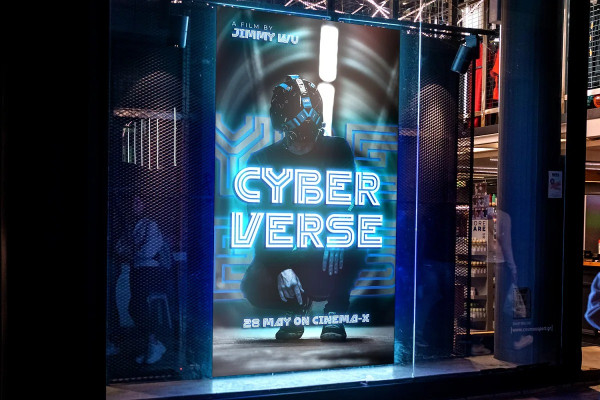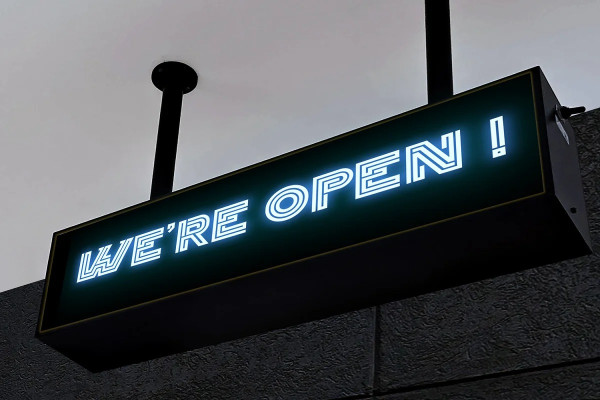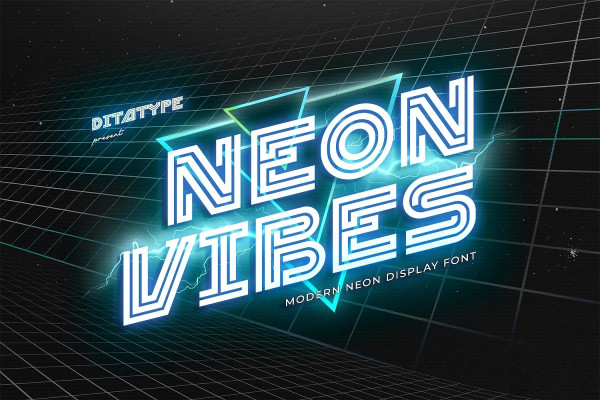
Neon Vibes Font
Neon Vibes Font is a vibrant and eye-catching display font designed to bring the electrifying energy of neon lights to your designs. With its big, bold uppercase letterforms and mesmerizing neon style, this typeface captures the essence of a lively and dynamic atmosphere.. Each letter is meticulously crafted to emanate a radiant and electrifying glow, just like the vibrant neon signs that illuminate city streets at night. This neon style adds a touch of excitement and energy, instantly drawing the viewer’s attention. Inspired by the pulsating rhythm of city nightlife, Neon Vibes exudes a sense of modernity and vibrancy. The font captures the essence of an urban atmosphere, casting a dazzling neon glow that creates a lively and captivating visual impact. Each letter radiates with an unmistakable charm, bringing your designs to life with its electrifying vibes. Enjoy the various features available in this font.
Neon Vibes perfect for headlines, banners, posters, and any design that requires a bold statement. The neon style adds an extra layer of excitement, making your text shine with a dynamic and eye-catching appeal. Whether you’re working on advertising campaigns, event promotions, digital artwork, or any creative project that calls for a lively aesthetic, this font will instantly infuse your designs with an electrifying energy. It particularly shines in applications related to nightlife, entertainment, music, and urban-themed designs. Find out more ways to use this font by taking a look at the font preview.